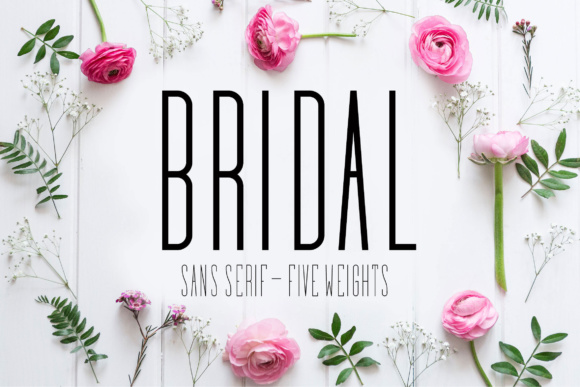
Bridal Font
Prepare your designs for a touch of sophistication with Bridal Font, a breathtaking display font crafted to evoke the essence of timeless elegance. Created by the ingenious Corgi Astronaut, Bridal is a sans serif masterpiece that exudes grace and allure.
With its five meticulously designed weights, Bridal grants you the freedom to explore a spectrum of creative possibilities. From ethereal wedding invitations to chic fashion campaigns, the versatility of this font is boundless. Let Bridal be your guiding light as you craft designs that capture the essence of love, beauty, and timeless sophistication.
Imagine your wedding invitations adorned with the delicate curves of Bridal, conveying the joy and promise of your special day. Its elegant letterforms will dance across the page, leaving an unforgettable impression on your guests. Or envision your fashion designs adorned with Bridal's sleek lines, creating an air of chic sophistication that will turn heads wherever you go. Bridal is more than just a font; it's a canvas upon which you can paint your dreams and aspirations.
Indulge in the beauty of Bridal and elevate your designs to new heights. Its versatility extends beyond weddings and fashion, making it the perfect choice for editorial projects, branding, and any endeavor that calls for a touch of elegance and timeless charm. With Bridal by your side, you'll have the power to transform your creative visions into captivating masterpieces that will leave a lasting impression.
Don't resist the allure of Bridal; embrace its enchanting beauty and unlock the infinite possibilities it holds. Let this exquisite font guide you on a journey of creativity and expression, where your designs blossom into works of art that will captivate and inspire. Bridal is your key to unlocking a world of sophistication, elegance, and timeless beauty.